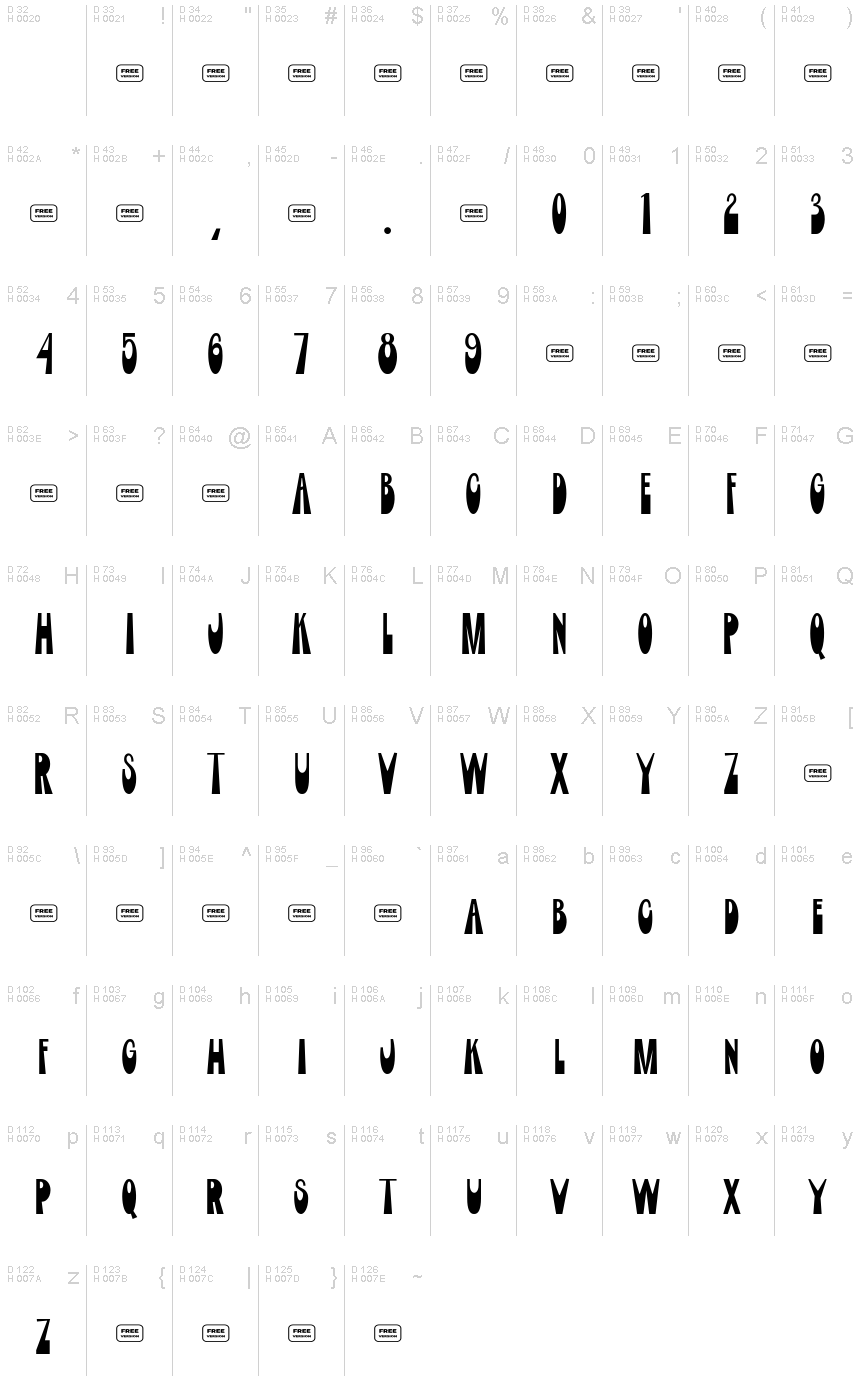
Philipa, a creation of Typefactoryco, is a captivating display font that radiates a groovy, bold, and condensed charm. Its towering presence and carefully crafted design evoke a down-to-earth warmth, inviting the reader to engage with its unique character. Philipa's versatility shines through, making it a standout choice for a wide range of design applications.
This font's distinctive features, such as its striking letterforms and carefully balanced proportions, make it an excellent selection for attention-grabbing headlines, impactful branding, and eye-catching typography. Philipa's bold, condensed style lends itself seamlessly to projects where a modern, yet approachable aesthetic is desired, whether it's on busy backgrounds or as a standalone focal point.